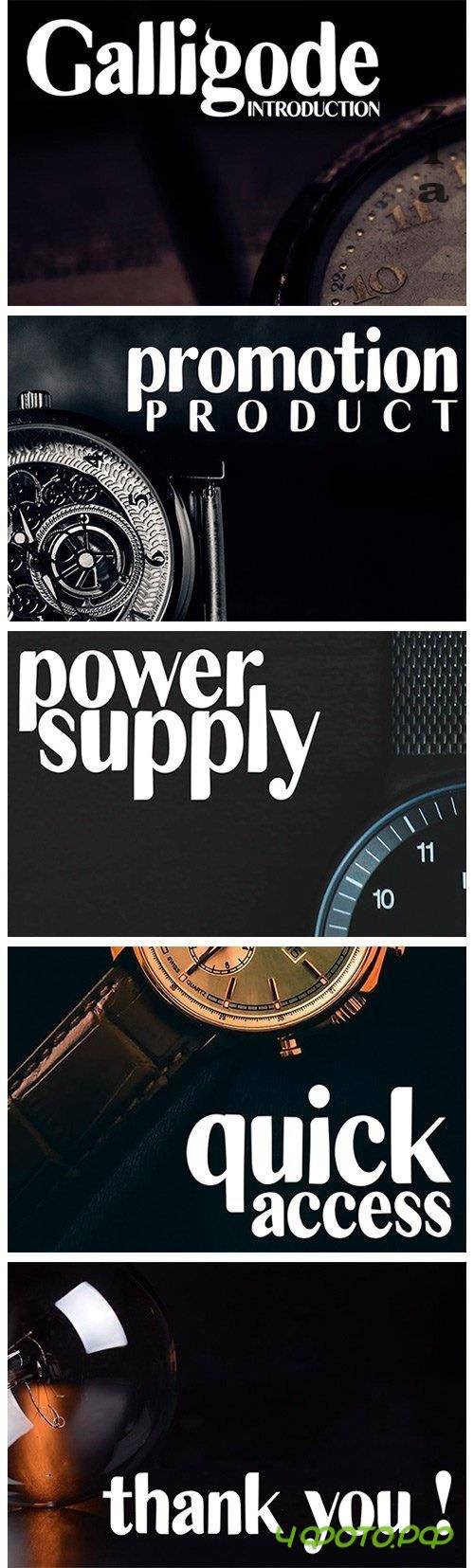
Galligode Font
Galligode is a bold handwritten font, carefully handcrafted to become a true favorite. Its casual charm makes it appear wonderfully down-to-earth, readable and, ultimately, incredibly versatile. This font will look outstanding in any context, whether it’s being used on busy backgrounds or as a standalone headline!